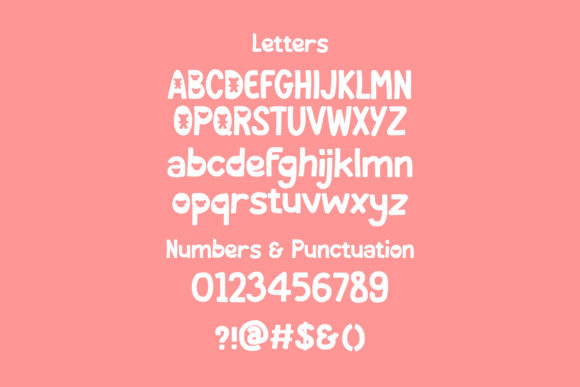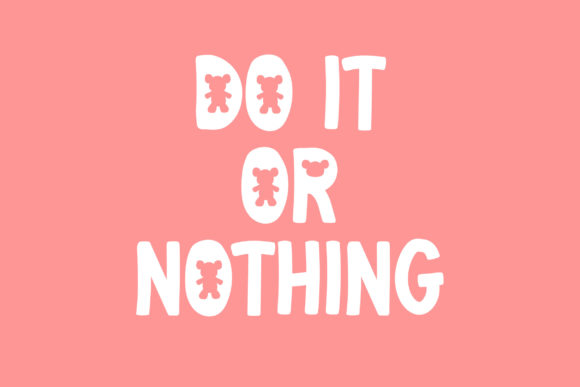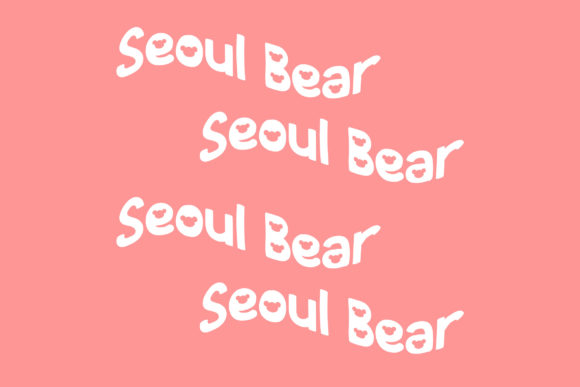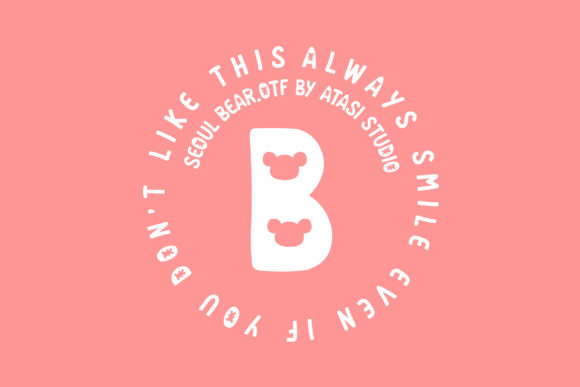
Introduction to Seoul Bear Font
Have you ever been working on a creative project and the perfect font just slips through your fingers? You search high and low for the perfect design resource, but nothing seems to match the vision in your head. That’s where the Seoul Bear Font comes in – a cute, bold, and trendy display font that will elevate your designs to the next level.
Whether you’re a seasoned designer or just starting out, the Seoul Bear Font is a valuable addition to any design toolkit. With its original look and feel, it’s perfect for adding a touch of personality to letterheads, titles, and stationery. Plus, with a transparent background option, you can easily customize it to fit your needs.
Key Features of Seoul Bear Font
- High-quality, unique design suitable for creative projects and designs requiring a modern aesthetic.
- Features a transparent background, making it easy to integrate into complex designs and compositions.
- Unique characteristics include a modern, sleek design with clean lines and a bold, eye-catching appearance.
- Perfect for designers and artists working on creative projects, such as logos, branding materials, and digital graphics.
Honest Review: Seoul Bear Font
Here are some things that work well with this font:
- ✨ Unique design aesthetic: The Seoul Bear Font has a quirky, hand-drawn feel that’s perfect for creative projects.
- ✨ High-quality glyphs: The font’s glyphs are crisp and clear, even at larger font sizes.
- ✨ Transparent background: The font’s transparent background makes it easy to use with images and other design elements.
- ⚠️ Limited language support: The Seoul Bear Font only supports a limited range of languages, which may be a concern for designers working on international projects.
- ⚠️ Not ideal for formal projects: The font’s playful design may not be suitable for formal or professional projects.
Overall, I’m impressed with the Seoul Bear Font. Its unique design aesthetic and high-quality glyphs make it a valuable resource for designers working on creative projects. Just be aware of its limitations and use it accordingly.
How to Use Seoul Bear Font
The Seoul Bear Font is a unique and versatile design resource that can elevate any creative project. With a transparent background, this high-quality font is perfect for designers looking for a distinctive touch.
Tips for Getting the Most Out of Seoul Bear Font
To get the most out of the Seoul Bear Font, experiment with different font sizes, colors, and combinations with other design elements.
The Seoul Bear Font is perfect for a variety of creative projects, including:
- Graphic design and visual identity
- Marketing materials and promotional products
Seoul Script Font
Seoul Script Font is a stylish, cursive design resource inspired by the vibrant culture of Seoul. It’s perfect for creative projects requiring a sophisticated, elegant touch. When to use: Fashion, beauty, and luxury brands, as well as projects that require a touch of Korean flair. Compared to Seoul Bear Font, Seoul Script Font has a more refined and polished design, making it better suited for projects that require a level of sophistication.
Bubblegum Sans Font
Bubblegum Sans Font is a fun, playful design resource perfect for creative projects requiring a bold, eye-catching vibe. It’s ideal for graphics, logos, and titles with transparent backgrounds. When to use: Youth-oriented brands, entertainment, and gaming projects. Compared to Seoul Bear Font, Bubblegum Sans Font has a more modern and edgy design, making it better suited for projects that require a lot of energy and dynamism.
Is the Seoul Bear Font suitable for print or digital use?
The Seoul Bear Font is suitable for both print and digital use. Its high-quality design makes it perfect for print materials, such as business cards, brochures, and posters. You can also use it for digital projects, including website design, social media graphics, and mobile app design. The font’s transparent background makes it easy to use in various design contexts.